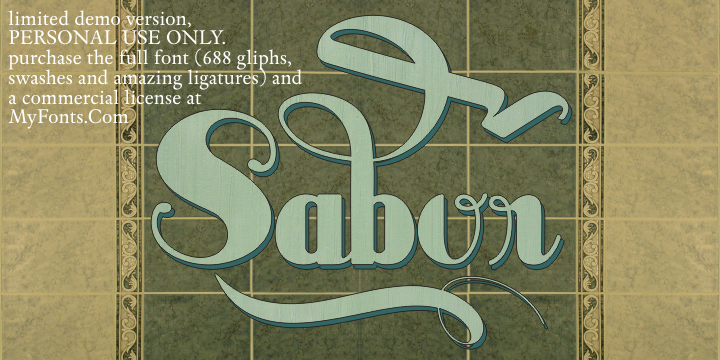
Preview and download Sabor Font. Created by Intellecta Design in Script Various styles with Free for personal use license.
Sabor Limited Free Version NOTE: This font is for PERSONAL USE ONLY! Sabor Limited Free Version To purchase the full font (688 gliphs, swashes and amazing ligatures) and a commercial license, visit: http://www.myfonts.com/fonts/intellecta/sabor/ Visit my commercial library : http://new.myfonts.com/foundry/Intellecta_Design/ Donations are appreciated! ================================================================================== about THE ORIGINAL FONT: Sabor is a voluptuous upright connected display font with mixed taste of script fonts. There were many inspirations for Sabor, but all started with a book from the 1950s about the battles of War War II. To that first sketches of a naive dense display typeface we, day by day, start to create a mixed style evolving some lettering concepts from 1950s, some calligraphy notions and the first display ideas. The feeling of this font is good to be used in many artworks, like logos, packaging, party invitations, layouts for t-shirts, magazine headings, and much more, since websites to and all kind of printed jobs. That font is not really a script, but, like the scripts we strongly recommends to use the caps only in the begining of words and sentences, to contrast with the lower cases : it’s not designed for all-caps settings, so avoid that kind of use. This font has almost 700 glyphs and supports the most important Latin-based languages. We works hard in a tour-de-force kerning: over 12.000 kerning pairs soft adjusted handly. Its OpenType features include final forms, initial forms, special sets (upper and lowercases), hundreds of contextual alternates ligatures providing letterform variations and concetions that make your designs really special, and ornaments (tails). More... |